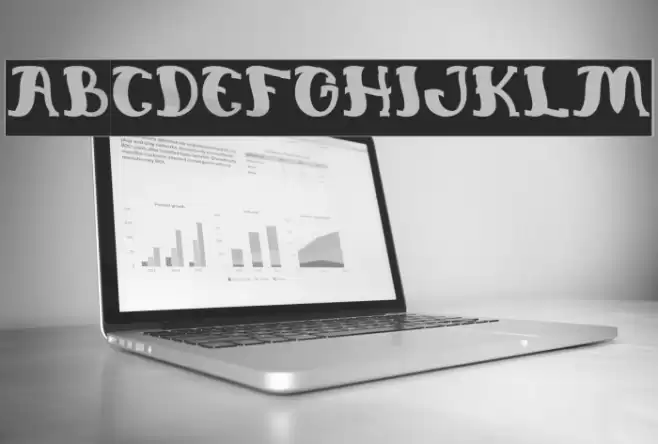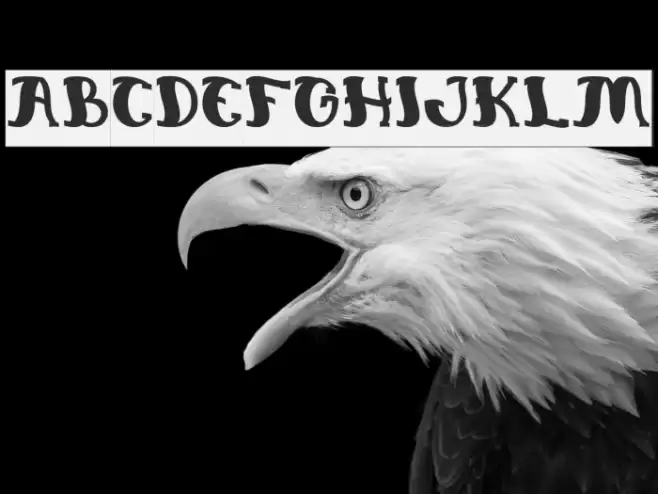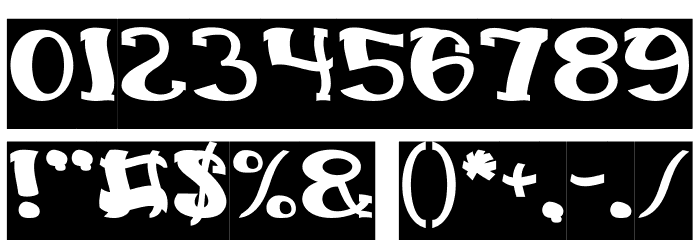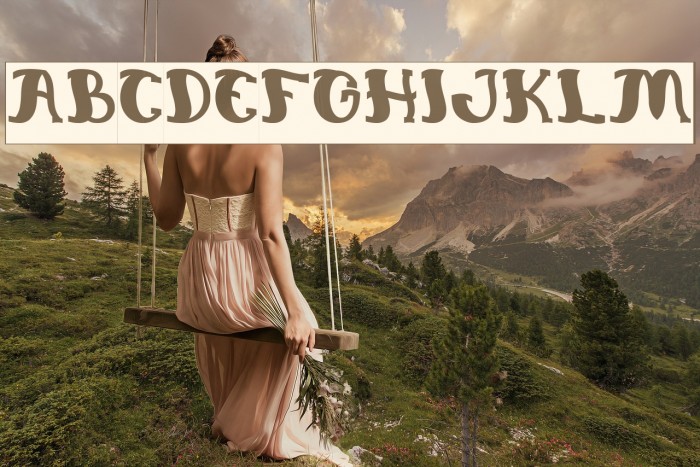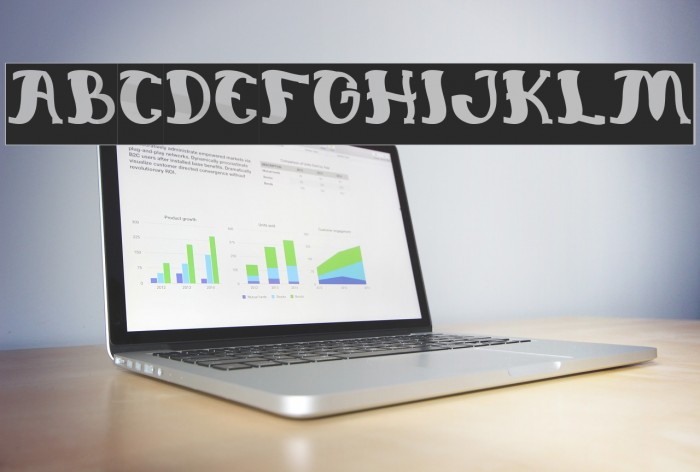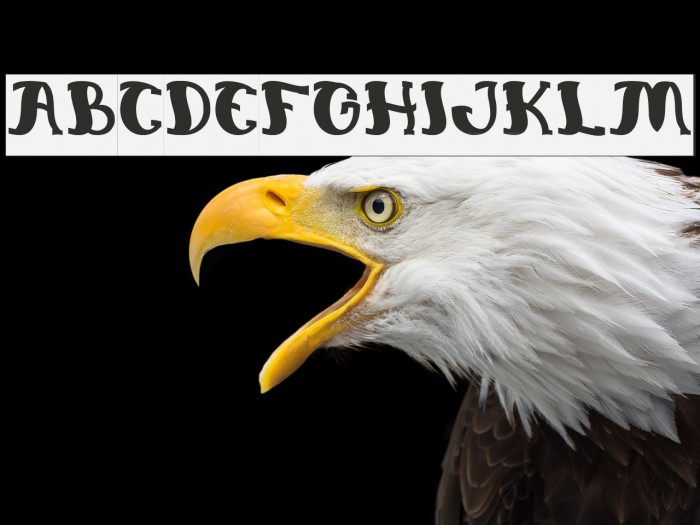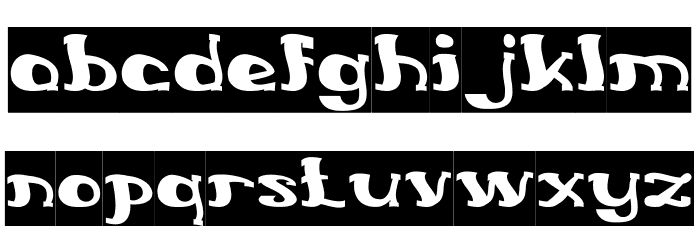
Everlasting Song-Negative Font
Everlasting Song-Negative Description
This font features a bold and playful style with exaggerated curves and a whimsical flair. The characters are highly stylized, with thick strokes and unique shapes that give it a distinctive, artistic appearance. The uppercase letters are particularly striking, with dramatic flourishes and a strong presence. The lowercase letters maintain the same playful aesthetic, with a slightly more subdued form. Numbers and special characters follow the same design principles, ensuring consistency across all glyphs. This font is perfect for projects that require a fun and eye-catching typeface.
A bold, playful font with exaggerated curves and whimsical flair from Uncategorized fonts.
- Proposed Projects: Ideal for children's book covers, playful branding, party invitations, and creative posters.